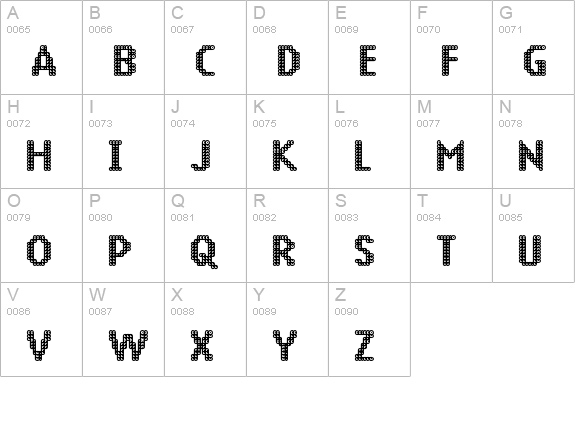
Ring Matrix Two Font Details
Ring Matrix Two is a cutting-edge and futuristic font that is sure to captivate and impress. Its sleek and modern design makes it perfect for a wide range of creative projects, from tech-inspired graphic designs to sleek and stylish branding. With its unique combination of sharp edges and smooth curves, Ring Matrix Two brings a sense of dynamism and energy to any text. What sets Ring Matrix Two apart is not only its striking aesthetic, but also its versatility. This font can be used for various purposes, such as headlines, logos, posters, and more. Whether you're designing a sleek website or creating eye-catching social media graphics, Ring Matrix Two will help you make a bold statement. One of the best features of Ring Matrix Two is that it is available for free download at FontsMarket.com. This means that you can easily access and use this incredible font without any restrictions. Whether you're a professional designer or a hobbyist, the accessibility and affordability of Ring Matrix Two make it a must-have in your font collection. With its futuristic appeal and free availability, Ring Matrix Two is the perfect choice for anyone looking to add a touch of modernity and sophistication to their designs. So why wait? Download Ring Matrix Two today and let your creativity soar!